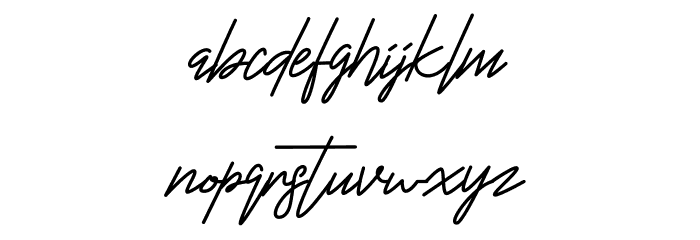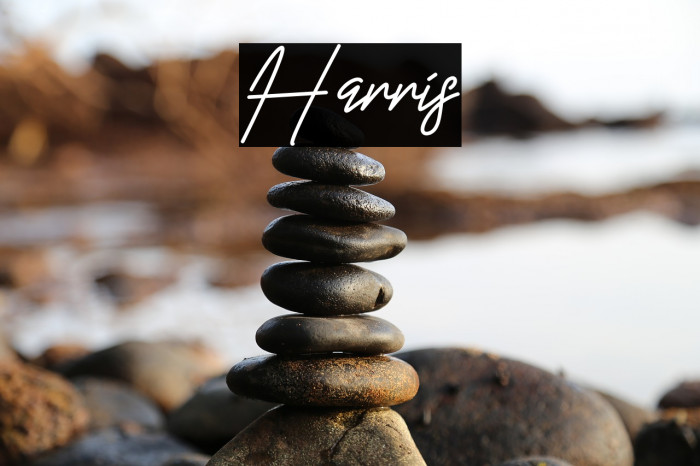
Harris Font
This font features a flowing, cursive style that mimics elegant handwriting. The uppercase letters are tall and slightly slanted, with smooth curves and a consistent stroke width. The lowercase letters maintain the same slant and flow, creating a cohesive look. Numbers are clear and legible, following the same cursive style. Special characters are integrated seamlessly, maintaining the overall aesthetic. The font exudes a sense of sophistication and grace, making it ideal for projects that require a personal touch.
A cursive, elegant font with a handwritten style.
- Proposed Projects: Ideal for wedding invitations, personal branding, greeting cards, and elegant logos.
- Overall Style: Elegant, Handwritten
- Use Case: Logos, Invitations, Personal Branding